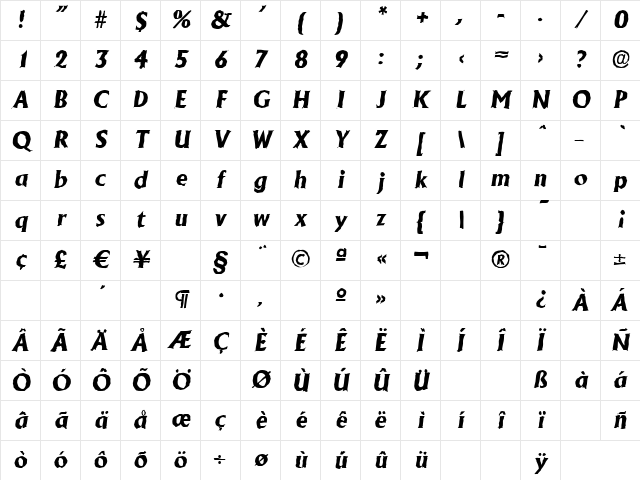
Complete JacobBeckerAntique-ExtraBold Italic glyph index. Displaying only characters natively supported by JacobBeckerAntique-ExtraBold Italic font.
Design Context for JacobBeckerAntique-ExtraBold
JacobBeckerAntique-ExtraBold wears its vintage influences proudly, with letterforms that recall mid-century signage, classic packaging, and nostalgia-driven design. The slanted form adds forward momentum and visual energy. Its bold stroke weight gives it real presence on the page.
Font Pairing: Combine JacobBeckerAntique-ExtraBold with a simple slab or neutral sans - period-accurate companions reinforce the vintage feel without competing for attention.
Pro Tip: Lean into JacobBeckerAntique-ExtraBold's period character by pairing it with aged paper textures, muted colour palettes, and vintage illustration styles.